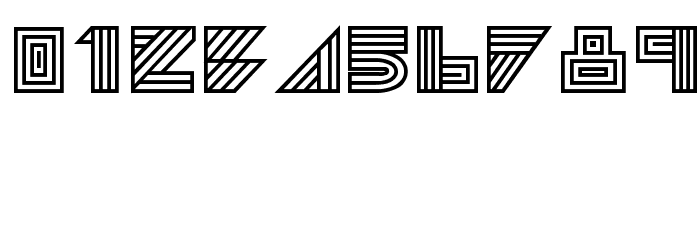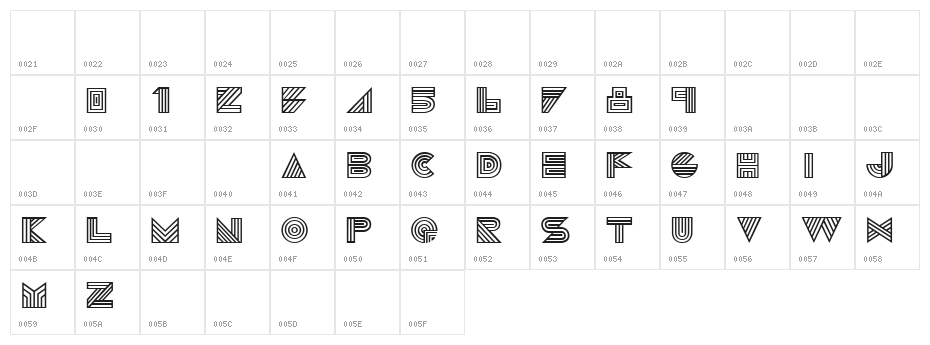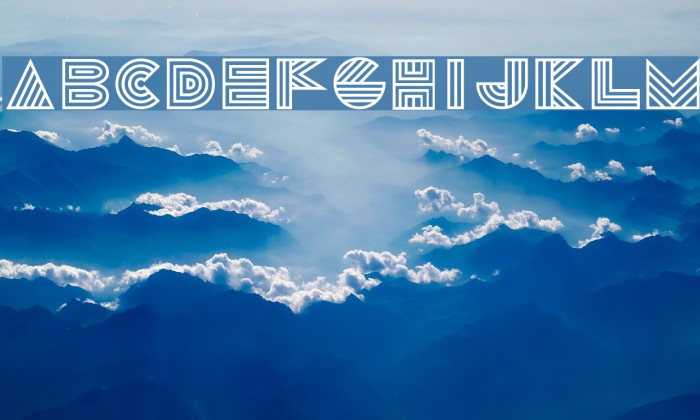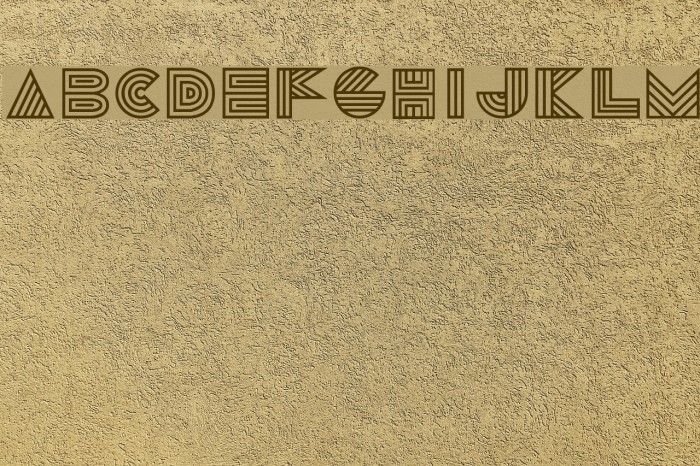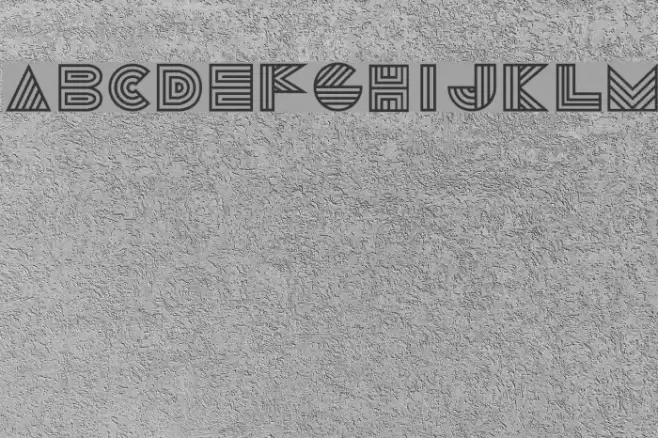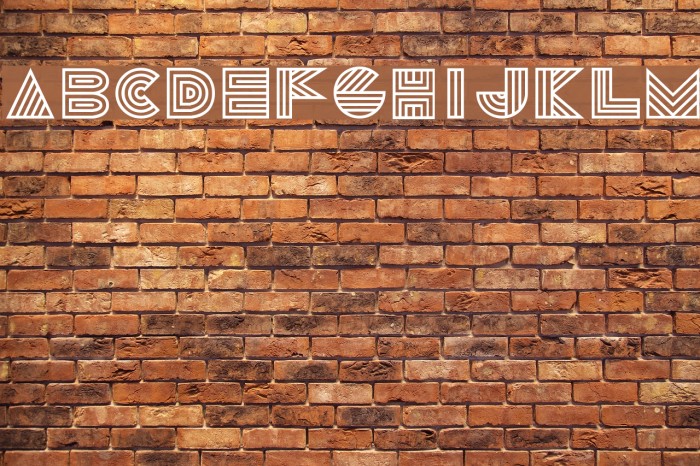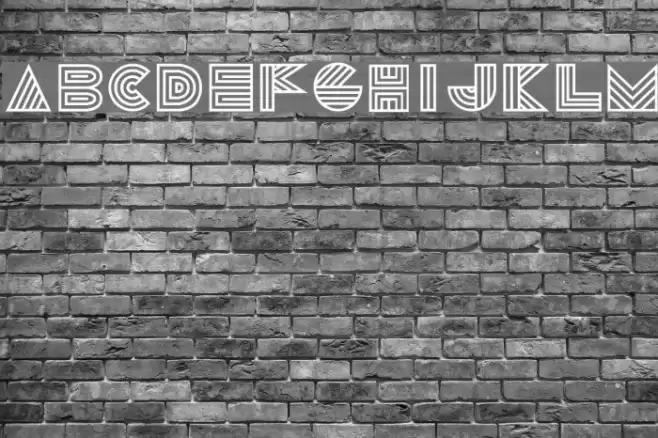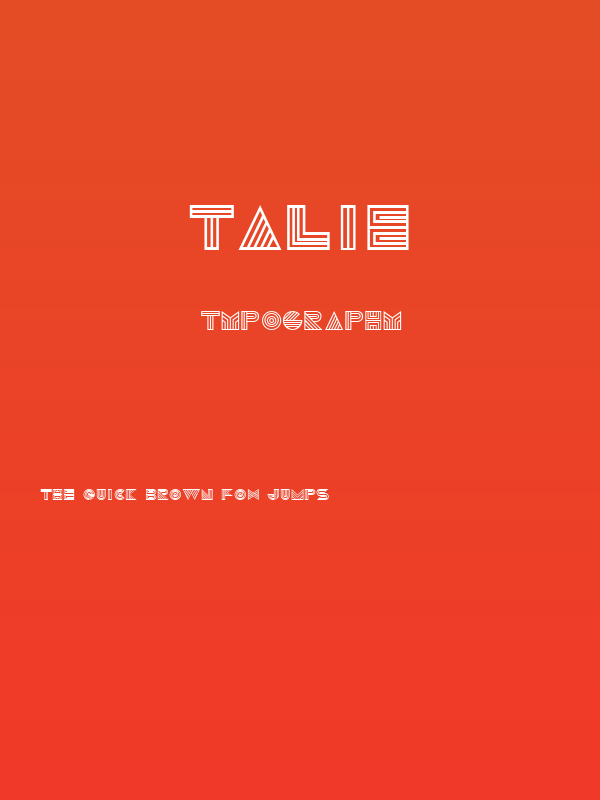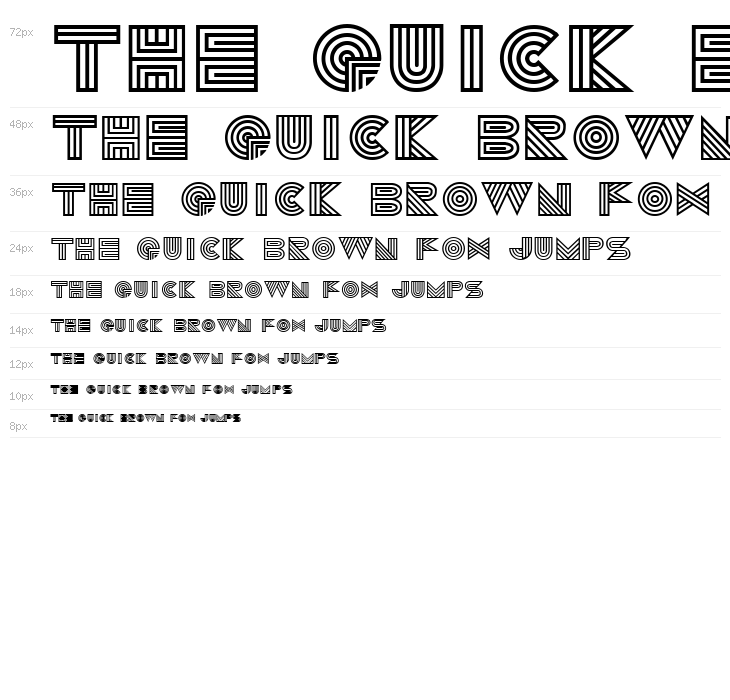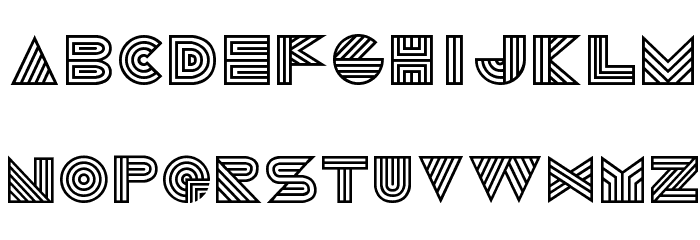
Talie Font
Talie Description
This font features a striking geometric design with a modern, artistic flair. Each character is constructed using a series of parallel lines and angles, creating a sense of depth and dimension. The uppercase and lowercase letters maintain a consistent style, with intricate patterns that make each letter stand out. The numbers and special characters follow the same design principles, ensuring a cohesive look across all elements. This font is ideal for projects that require a bold and unique visual impact.
| Proposed Projects | Ideal for branding, posters, album covers, and modern art projects. |